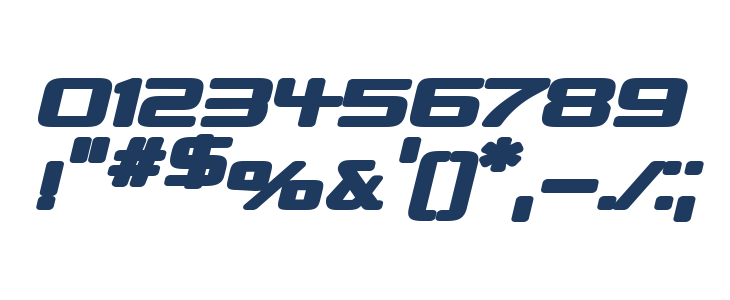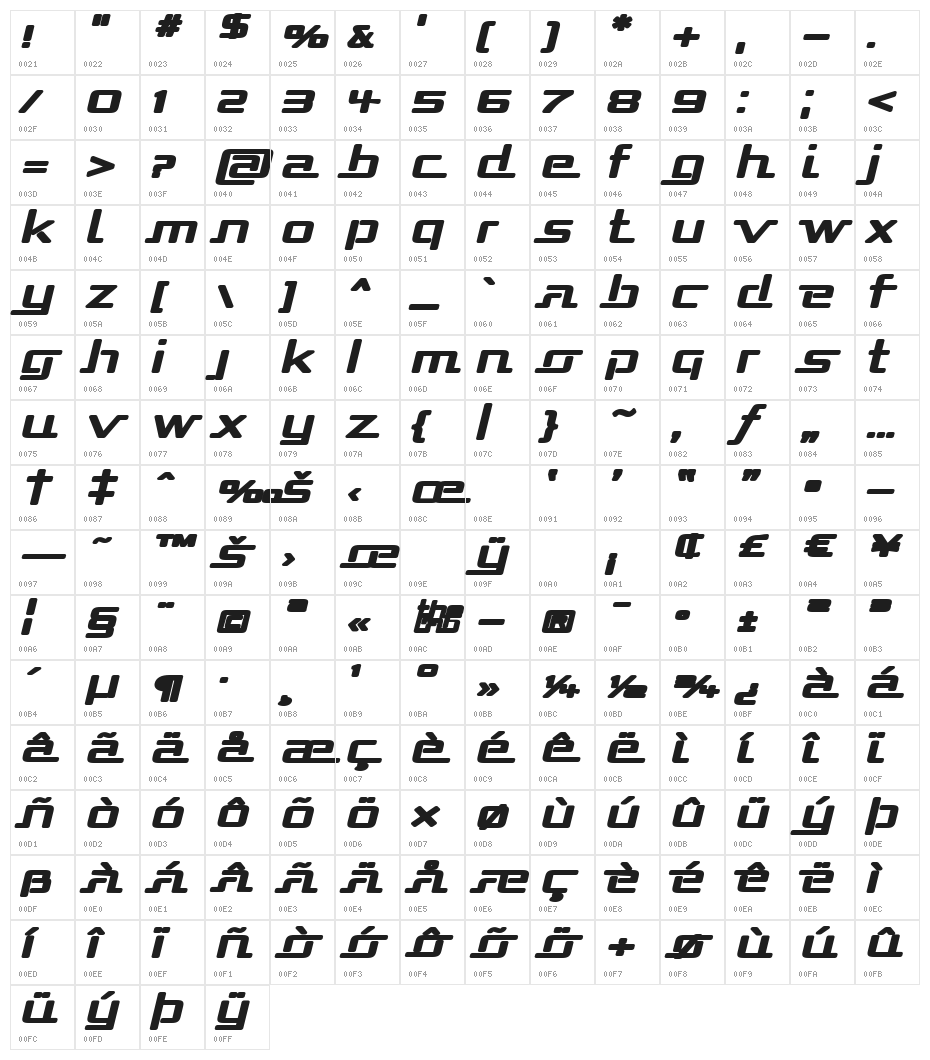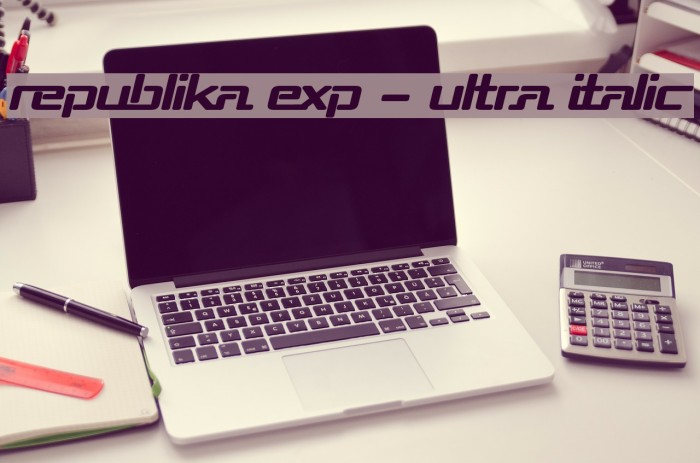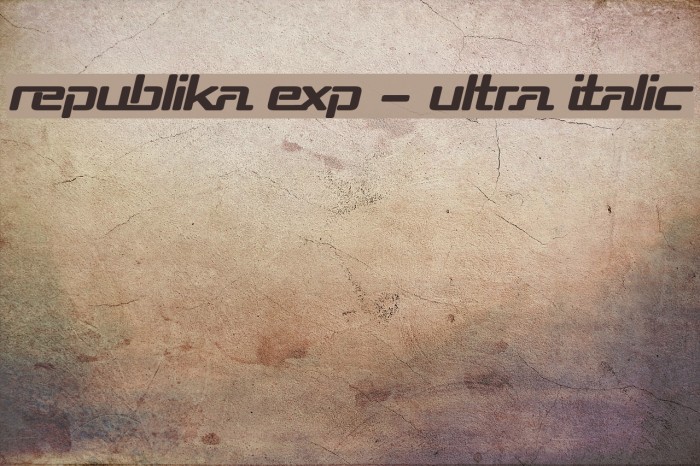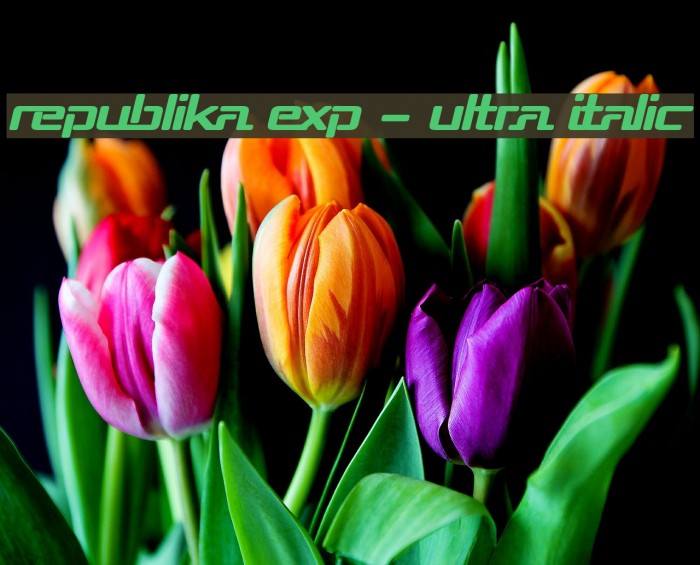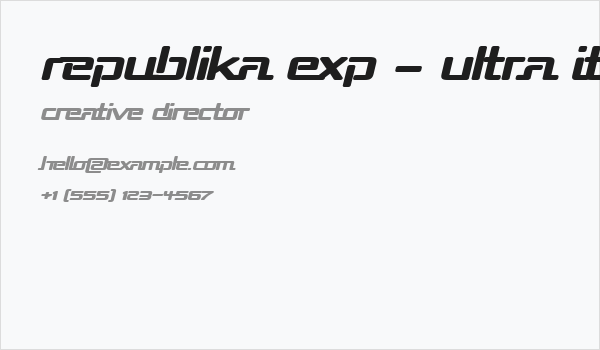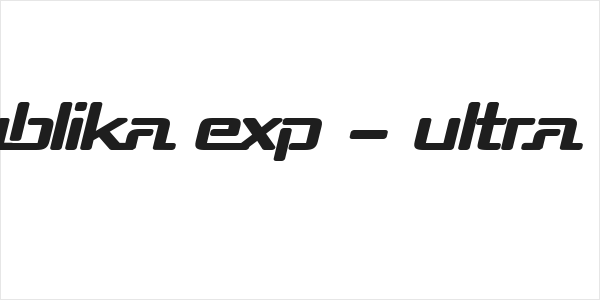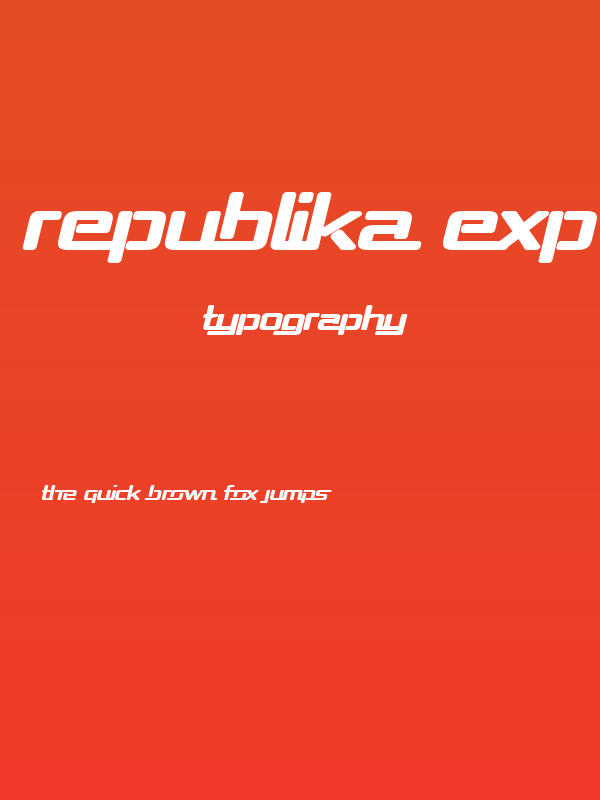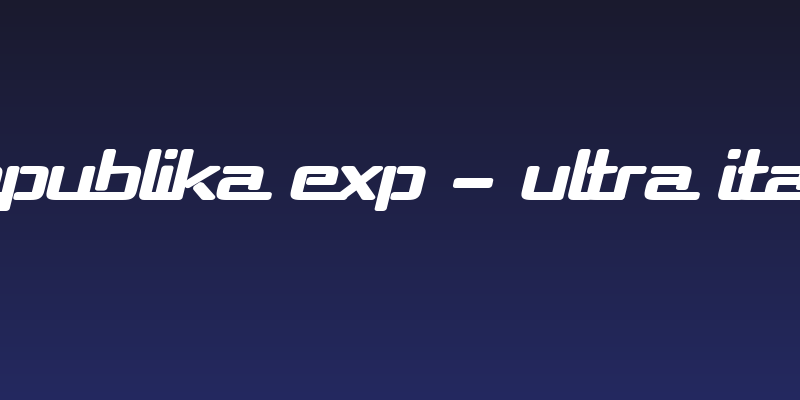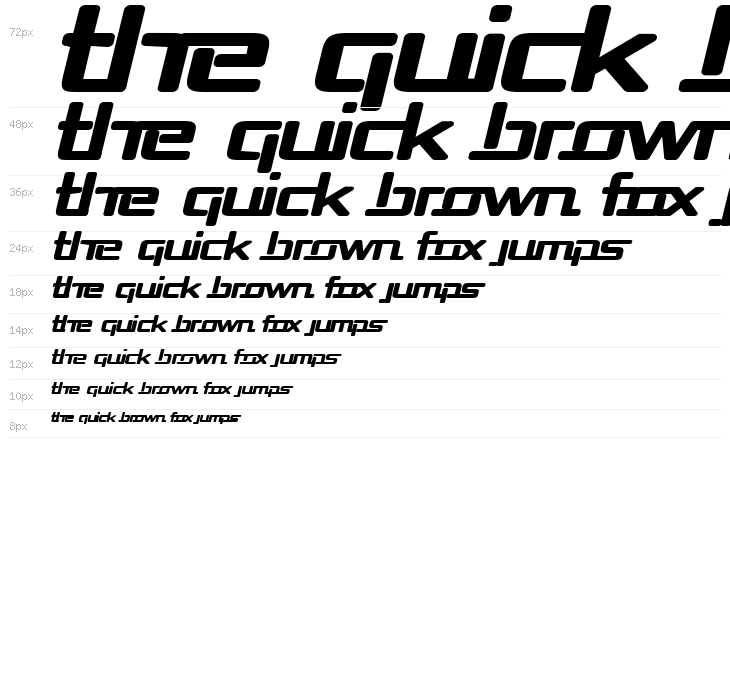
Republika Exp - Ultra Italic Font
Republika Exp - Ultra Italic Description
This font features a futuristic and dynamic design with a strong italic slant, giving it a sense of motion and speed. The characters are bold and have a geometric structure, with rounded edges that soften the overall appearance. The uppercase and lowercase letters maintain a consistent style, with the lowercase letters slightly more condensed. The numbers are clear and legible, matching the style of the alphabet. Special characters are included, maintaining the same bold and italicized style. This font is ideal for projects that require a modern and energetic look.
| Proposed Projects | Ideal for sports branding, tech-related designs, futuristic posters, and dynamic advertising campaigns. |